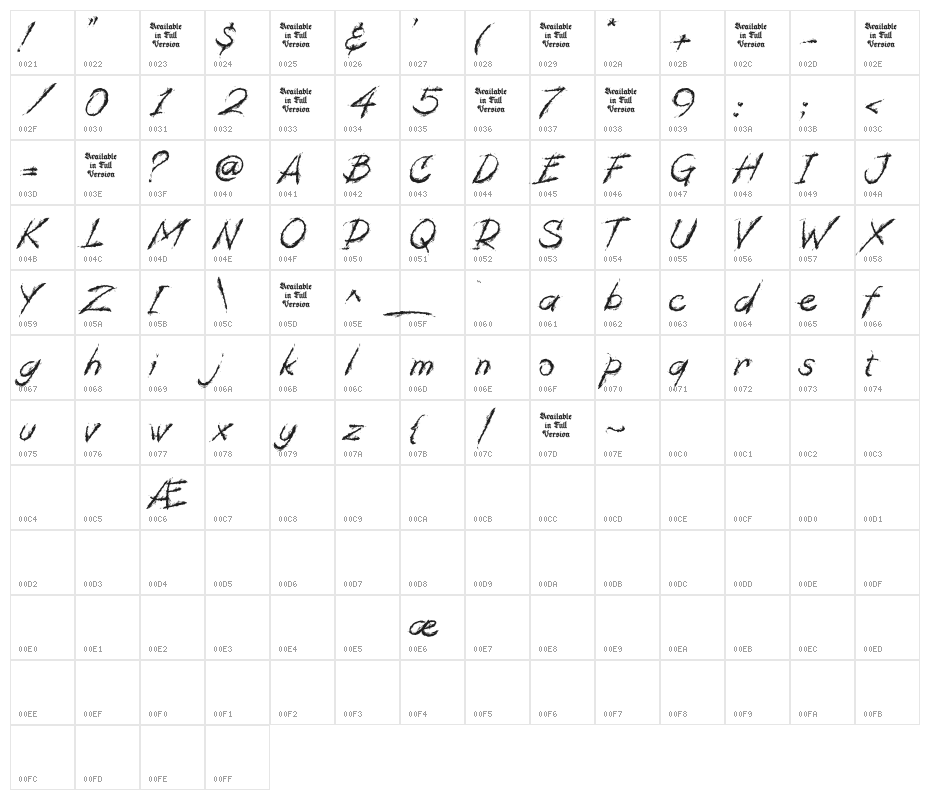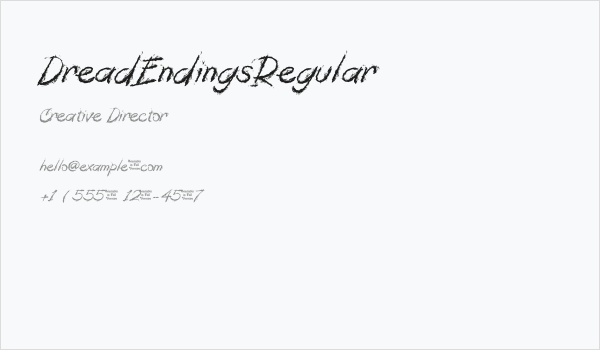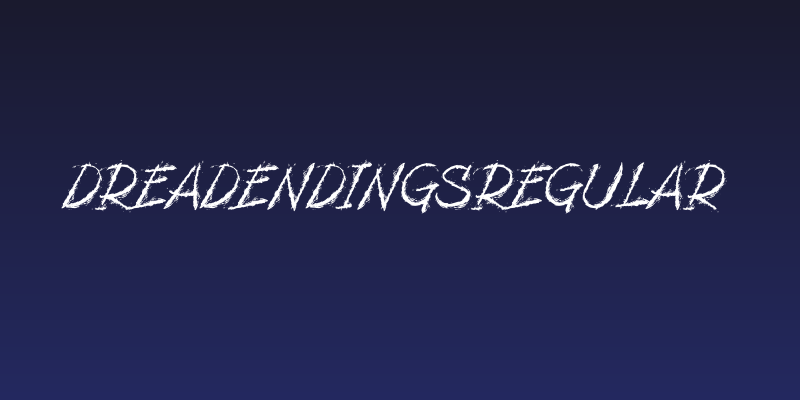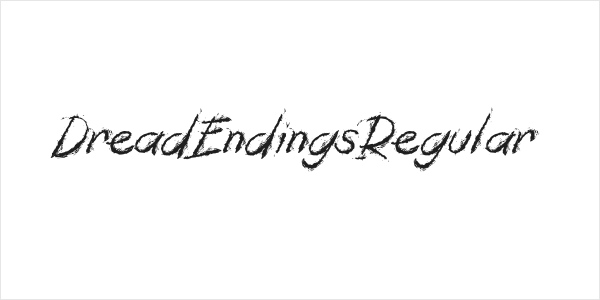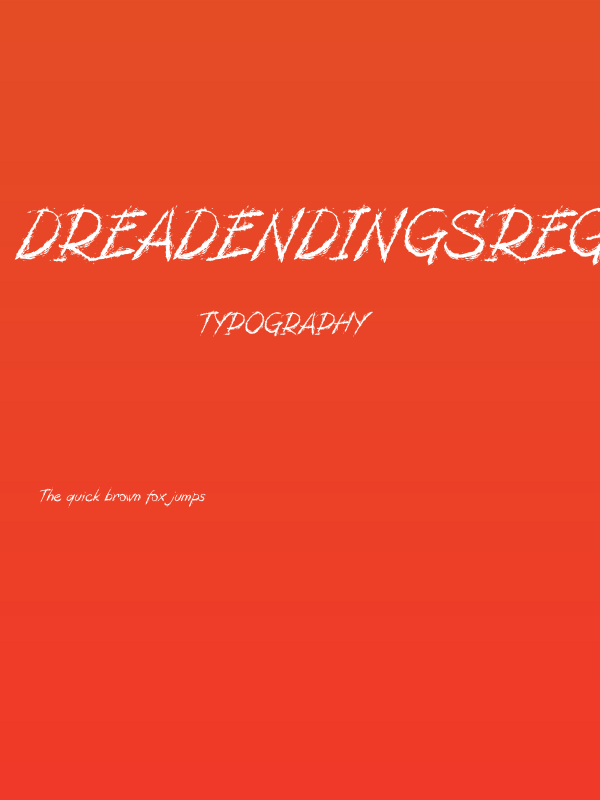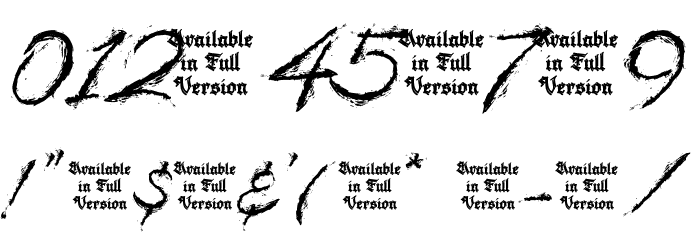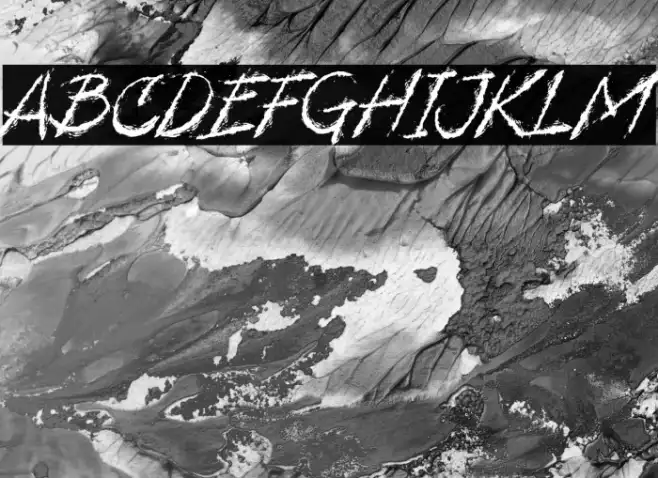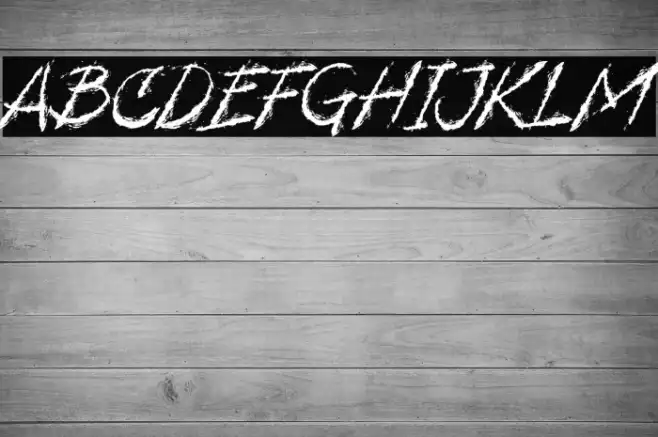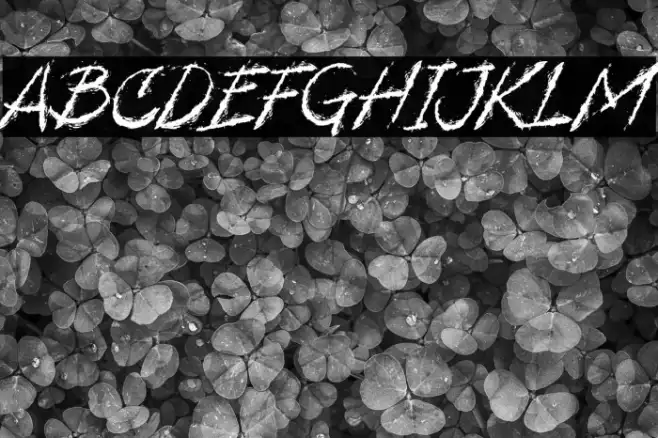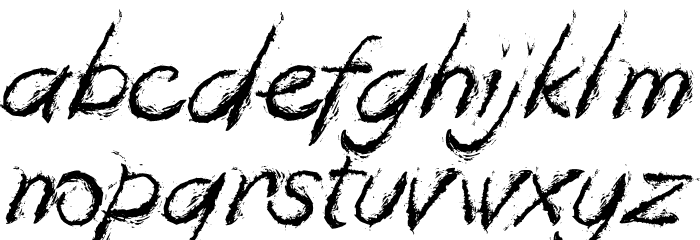
DreadEndingsRegular Font
DreadEndingsRegular Description
This font features a dramatic, brush-like texture that gives it a raw and edgy appearance. The strokes are uneven and jagged, creating a sense of movement and intensity. The uppercase and lowercase letters maintain a consistent style, with sharp angles and a slightly slanted orientation. The numbers and special characters follow the same rugged design, making the font cohesive throughout. Its unique style is reminiscent of hand-painted signs or graffiti, offering a bold and artistic flair. The font's distinctive look makes it ideal for projects that require a strong visual impact.